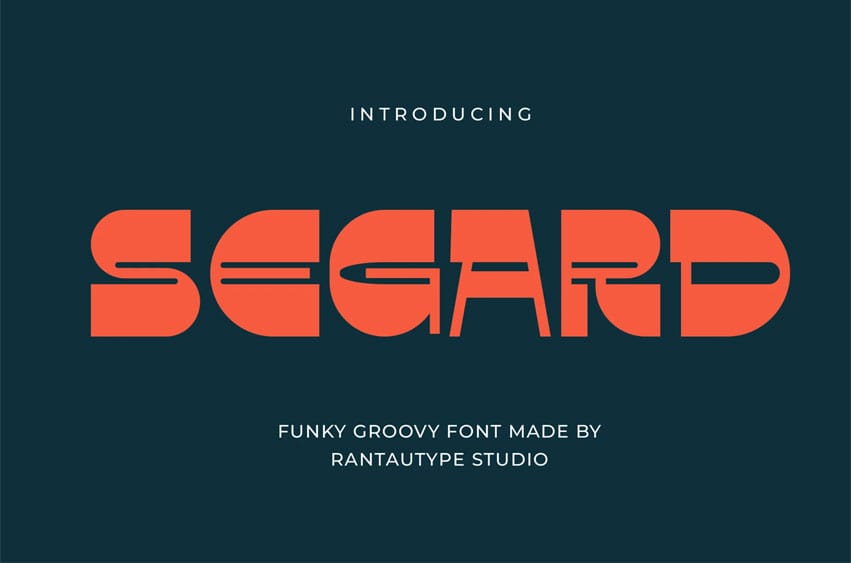
Segard Font is funky groovy font come with bold and confident character. Segard come with confident and strong brush character.
Harca is a perfectly choice for any creative endeavor, creating, modern, lifestyle design such as logotype, title, cover, branding, invitations, wedding designs, display and magazine, social media posts, advertisements, printed quotes, product packaging, corporate brand, product designs, labels, photography, watermarks, special events and any other project with groovy touch.